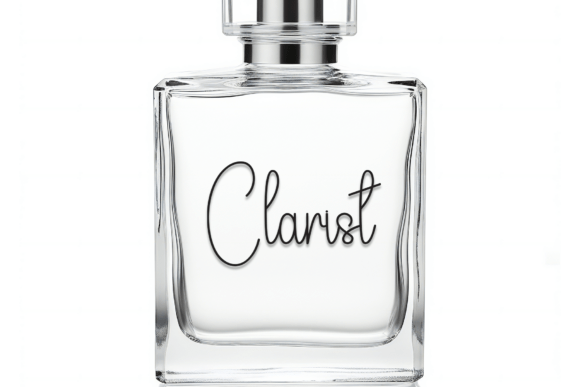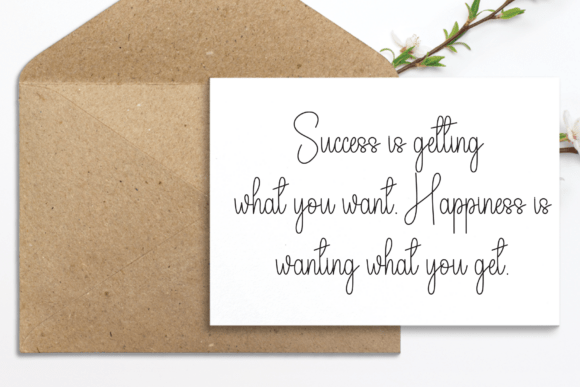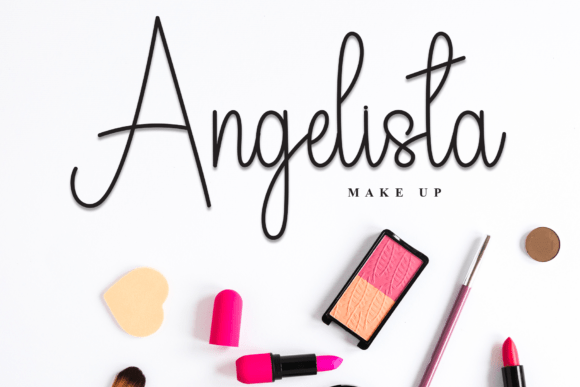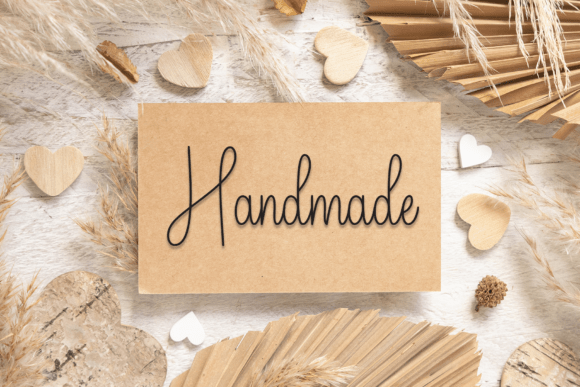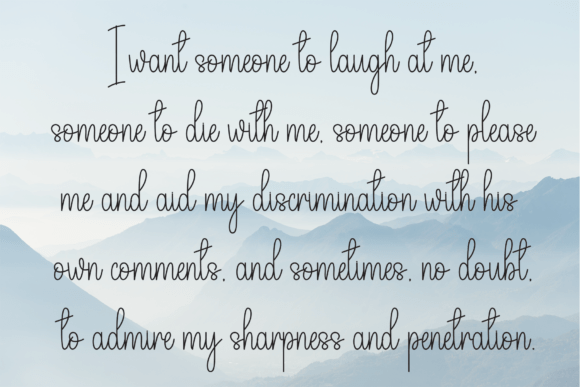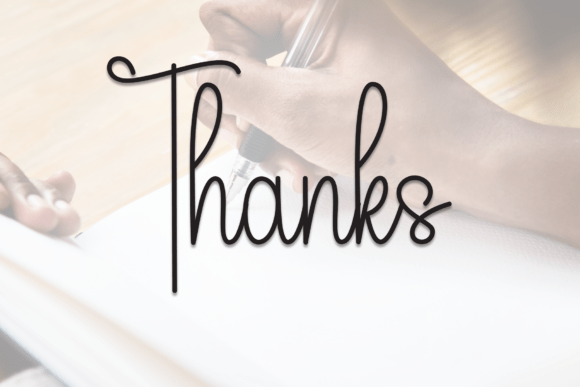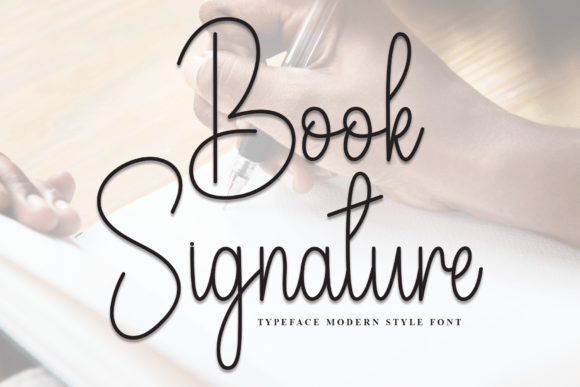
Introducing Book Signature Font: The Perfect Blend of Cute and Entertaining
Are you tired of using the same old fonts for your design projects? Look no further! Book Signature Font is a charming and warm-hearted display font that is sure to add a touch of personality to your creations. This hand-fashioned font is a unique asset that combines cute and entertaining features, making it perfect for a variety of design outlets.
Amiable Touch for a Personalized Look
What sets Book Signature Font apart is its refined amiable touch. This font is not just a collection of letters and symbols; it’s a tool that breathes life into your designs. With its warm and inviting appeal, it’s perfect for wedding invitations, greeting cards, and any platform that needs a sprinkle of fun. Whether you’re a designer, crafter, or DIY enthusiast, this font is sure to become your new go-to.
Unique Personality for a Lasting Impression
Book Signature Font boasts a unique personality that is sure to enchant your viewers. Its one-of-a-kind design makes any message impressively delightful and engaging. Whether you’re creating a wedding invitation, a birthday card, or a social media post, this font is sure to make your message stand out. Its charming and entertaining features will leave a lasting impression on your audience, making them more likely to engage with your content.
Book Signature Font is a versatile font that is perfect for designers and crafters alike. Its wide range of applications makes it a valuable asset for anyone who creates digital or physical content. Here are just a few ways you can use Book Signature Font:
- Blog headers and titles
- DIY projects and crafts
Why Choose Book Signature Font?
With so many fonts available, why choose Book Signature Font? Here are just a few reasons:
- Unique design: Book Signature Font has a one-of-a-kind design that will make your creations stand out.
- Versatility: This font can be used for a wide range of design projects, from wedding invitations to social media posts.
- High-quality: This font is designed with high-quality and clarity in mind, ensuring that your creations look professional and polished.
Tips for Using Book Signature Font
Here are a few tips for getting the most out of Book Signature Font:
- Experiment with sizes and colors: Don’t be afraid to try out different sizes and colors to find the perfect combination for your design.
- Pair with other fonts: Book Signature Font pairs well with other fonts, so feel free to get creative and experiment with different combinations.
- Use for headlines and titles: This font is perfect for headlines and titles, where you want to make a bold statement.
Book Signature Font is a charming and warm-hearted display font that is sure to add a touch of personality to your design projects. With its unique design, versatility, and ease of use, it’s perfect for designers, crafters, and DIY enthusiasts alike. Whether you’re creating wedding invitations, greeting cards, or social media posts, this font is sure to make your message stand out. So why wait? Download Book Signature Font today and start creating your own unique and engaging designs!